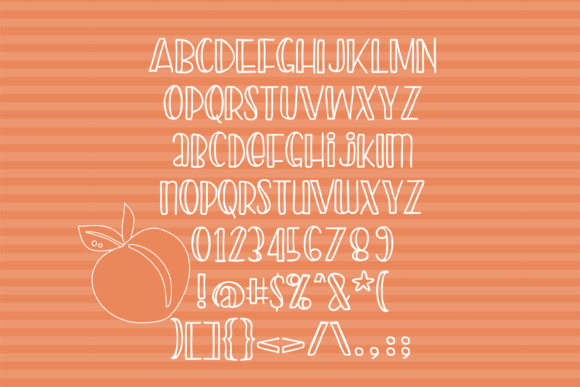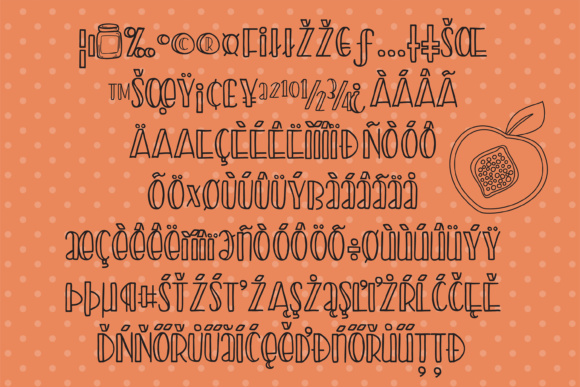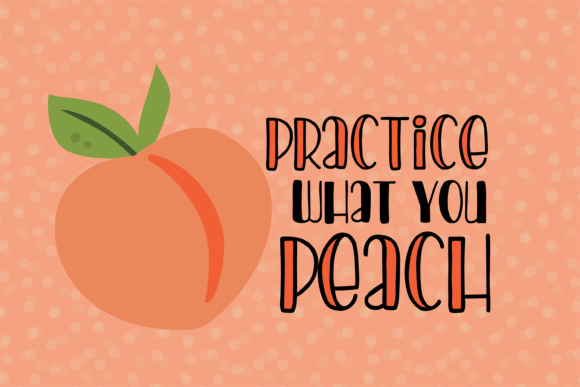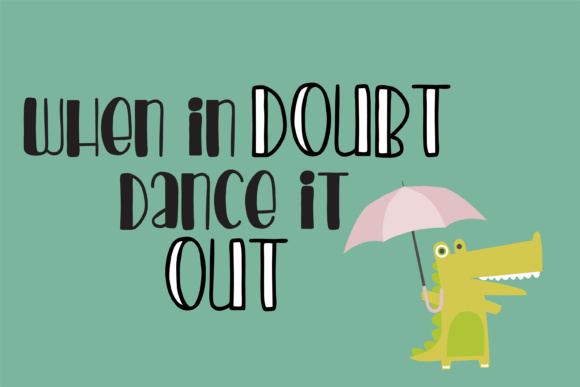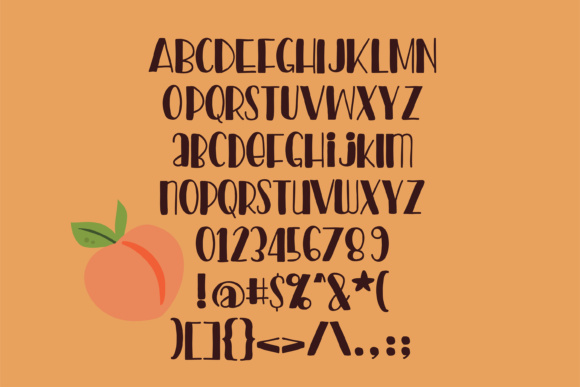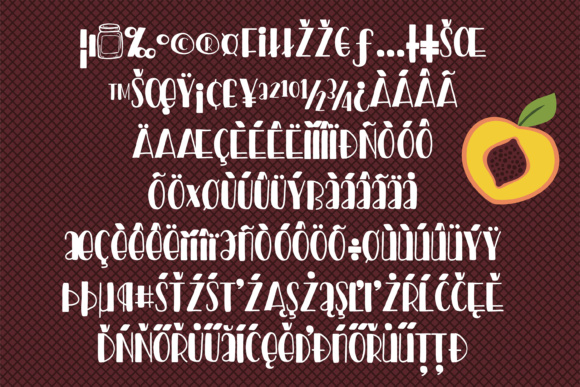
Introduction to Peach Preserves Font Font
Fonts play a crucial role in design, and the Peach Preserves Font font is a typeface that brings both character and versatility to any project. Whether you’re working on a branding project, a website, or a print design, the Peach Preserves Font font offers a unique style that can elevate your work.
Peach Preserves is a cute hand-crafted font duo, perfect for layering or using in combination with one another for a whimsical approach to typographic designs.
This font has a breezy and casual vibe, and works well in a large range of works .
Key Features of Peach Preserves Font Font
Why Choose Peach Preserves Font Font?
The Peach Preserves Font font is more than just a typeface – it’s a design tool that helps you communicate your message with style and clarity. Its unique character set and versatile design make it suitable for a wide range of applications, from elegant invitations to bold headlines.
With its carefully crafted letterforms and balanced proportions, the Peach Preserves Font font ensures readability and visual appeal across all mediums.
What makes Peach Preserves Font font special?
The Peach Preserves Font font stands out with its unique design, exceptional readability, and versatility across various design applications.